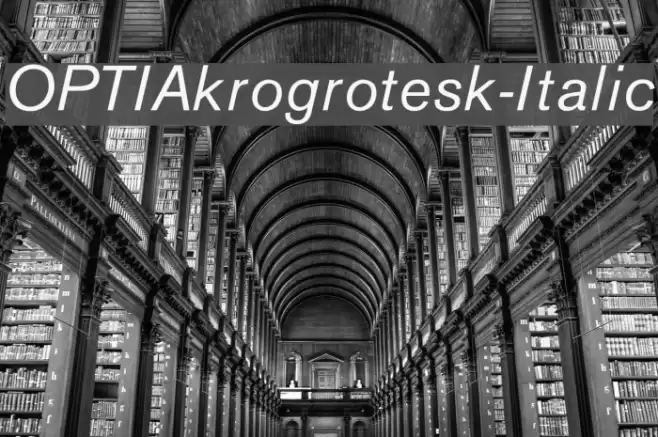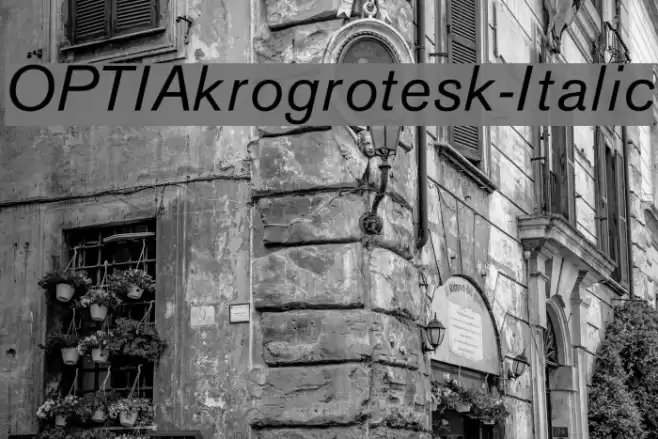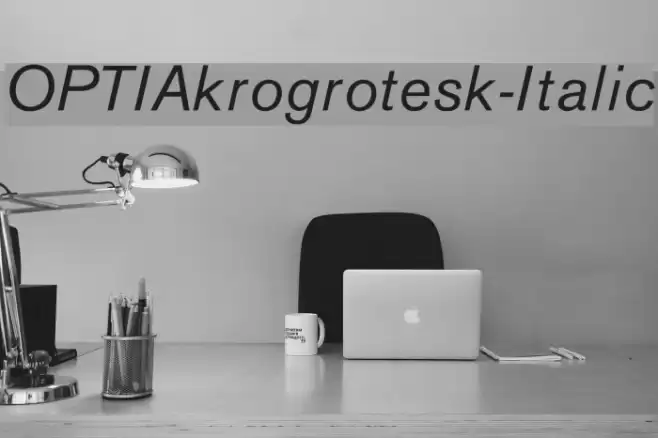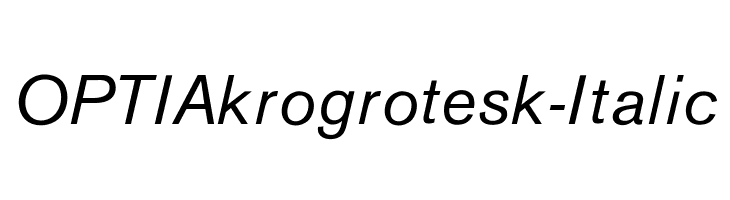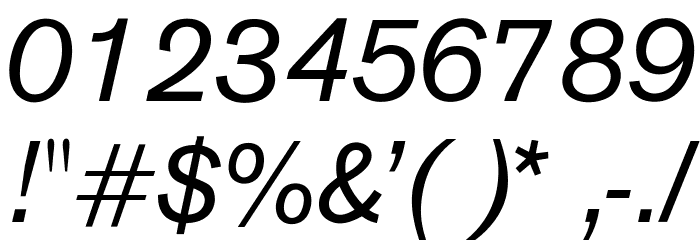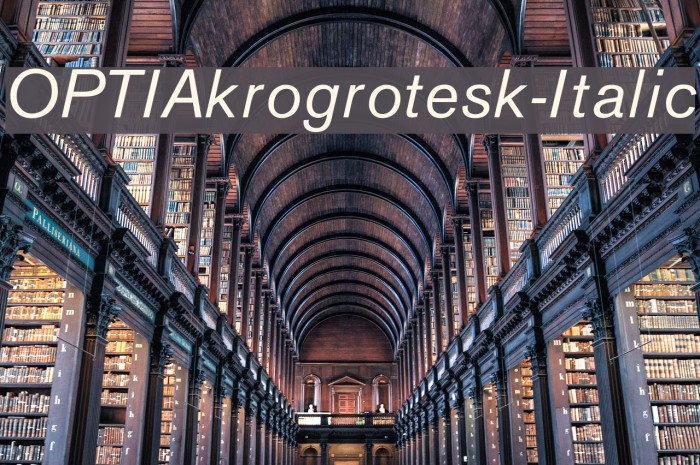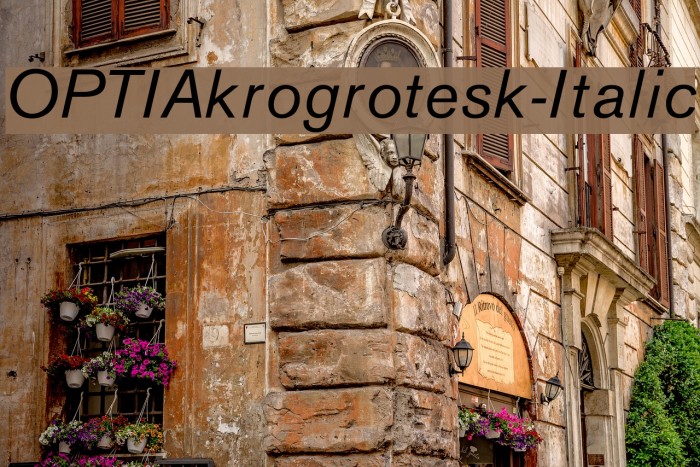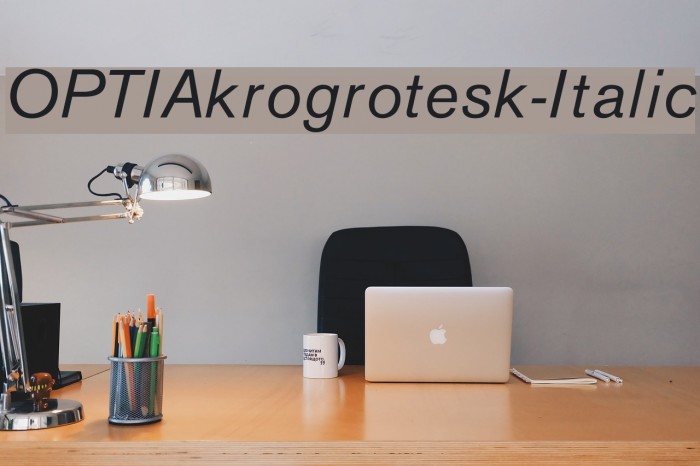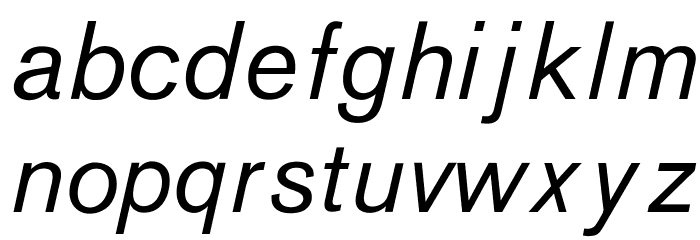
OPTIAkrogrotesk-Italic Font
OPTIAkrogrotesk-Italic Description
This font features a sleek and modern italic style, characterized by its clean lines and subtle curves. The letters are slightly slanted, giving a sense of motion and elegance. The uppercase and lowercase characters maintain a consistent design, with a uniform stroke width that ensures readability. The numerals are clear and distinct, matching the overall aesthetic of the alphabet. Special characters are well-integrated, providing versatility for various design needs. This font is ideal for projects that require a contemporary and professional look.
A modern italic font with clean lines and a sleek, professional appearance from Uncategorized fonts.
- Proposed Projects: Ideal for branding, advertising, editorial design, and digital interfaces.